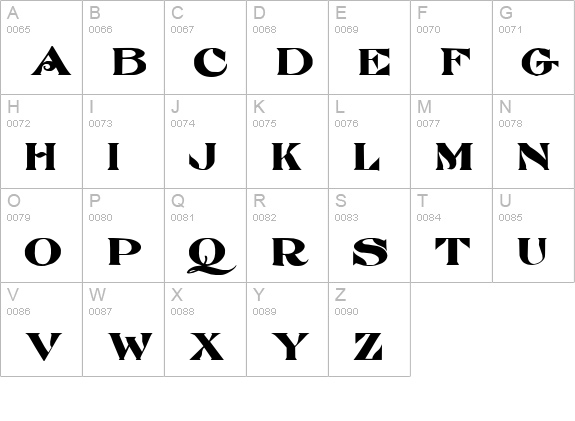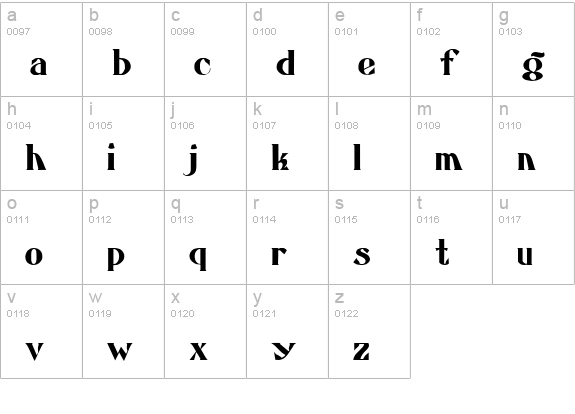
Atkinson Eccentric Font Details
Atkinson Eccentric font is a captivating and unique typeface that brings a touch of quirkiness and playfulness to your design projects. With its eccentric and off-kilter letterforms, this font is sure to make a bold statement and stand out from the crowd. What sets Atkinson Eccentric font apart is its free-spirited charm and unconventional style. Each letter has a distinct personality, creating a sense of whimsy and fun in any text. Whether you're designing posters, logos, or social media graphics, this font will add a touch of creativity and flair to your work. Best of all, Atkinson Eccentric font is freely available to download at FontsMarket.com. So go ahead and unleash your creativity with this delightful and eye-catching typeface. Let your imagination run wild and make your designs truly stand out with Atkinson Eccentric font.